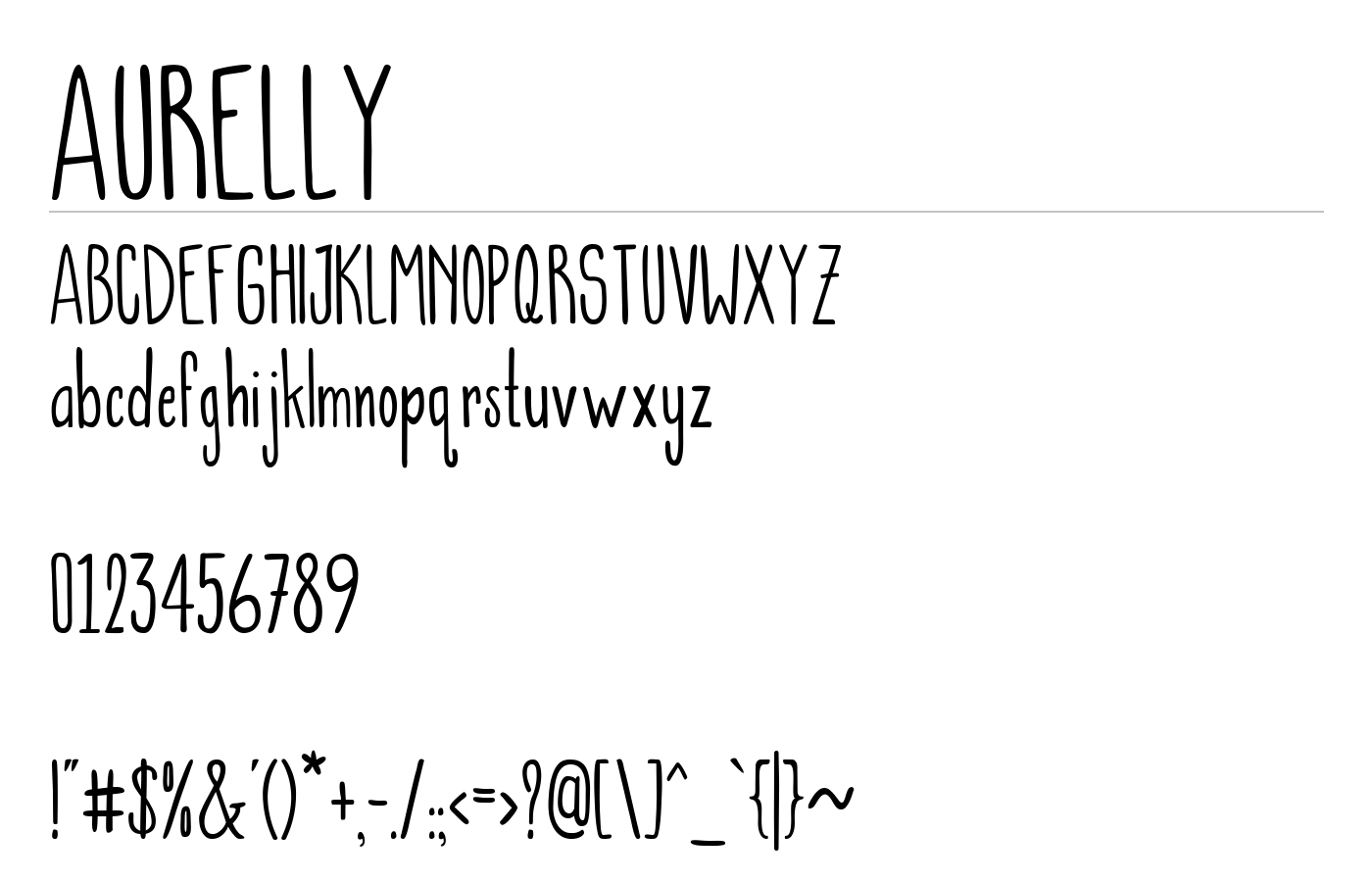
AURELLY is a tall, narrow sans serif font with a playful, hand-drawn feel that adds personality and charm. Its slender letterforms with slight irregularities create an approachable and casual vibe, making it ideal for creative projects, informal branding, and fun headlines. This font works well where a quirky, friendly style is needed to stand out while remaining easy to read.
AURELLY Font
About AURELLY Font